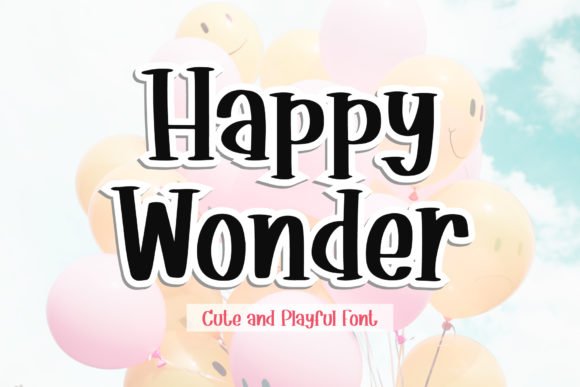
We’ve all been there – staring at a blank screen, struggling to find the perfect font to bring our creative vision to life. It’s like searching for a needle in a haystack, but with letters. Suddenly, the perfect font appears, and everything clicks into place. This is what happened to us when we discovered the Happy Wonder Font.
This adorable serif font is more than just a pretty face – it’s a versatile tool that can elevate your social media posts, posters, cards, and greeting cards. Its approachable and quirky style makes it the perfect fit for designers who want to add a touch of whimsy to their work. Whether you’re a seasoned pro or just starting out, the Happy Wonder Font is an invaluable addition to your design toolkit.
Key Features of Happy Wonder Font
- Font Family: Happy Wonder Font offers a unique and playful font family with a range of weights and styles, including bold, italic, and regular.
- Unique Characteristics: The Happy Wonder Font features a whimsical and hand-drawn design, with subtle imperfections and textures that add to its charm and personality.
- Character Count: The font includes a wide range of characters, including Latin, Cyrillic, and Greek alphabets, as well as punctuation marks and symbols.
Happy Wonder Font Review
Overall, I’m impressed with the Happy Wonder Font. It’s ✨ visually appealing, with a unique blend of playful and modern elements. The font is perfect for creating eye-catching titles and headings, especially in designs that need a touch of whimsy.
The Happy Wonder Font comes with a wide range of weights, from light to bold, which gives designers plenty of flexibility when it comes to choosing the perfect style for their project. I also appreciate the ✨ extensive character set, which includes a variety of special characters and symbols.
While the Happy Wonder Font is a great addition to any designer’s toolkit, it’s not without its limitations. ⚠️ One of the main issues is the font’s inconsistent spacing, which can make it difficult to use in certain contexts. Additionally, the font’s weight hierarchy can be a bit confusing at times.
Despite its limitations, I’m a big fan of the Happy Wonder Font. It’s a great choice for designers who want to add a touch of personality to their projects. With a little practice and patience, I think this font has the potential to become a go-to choice for many designers.
Design Considerations
- Use the Happy Wonder Font sparingly, as its unique style can be overwhelming if used too extensively.
- Experiment with different weights and combinations to achieve the desired effect.
- Be mindful of the font’s spacing and weight hierarchy to avoid visual inconsistencies.
Happy Wonder Font Practical Application Guide
Tips for Getting the Most Out of Happy Wonder Font
Use Happy Wonder Font to add a playful and whimsical touch to your designs.
Pair Happy Wonder Font with other playful fonts or graphics for a cohesive look.
Happy Wonder Font is perfect for:
Children’s book covers and illustrations.
Party invitations and decorations.
Food and beverage branding.
Alternatives to Happy Wonder Font for Designers
Great Vibes is a playful and elegant script font, ideal for creating a whimsical atmosphere in branding and advertising materials. It features a mix of modern and vintage elements, making it a great choice for designers looking for a unique and eye-catching font. Compared to Happy Wonder Font, Great Vibes has a more refined and sophisticated look, making it suitable for a wider range of design applications.
Carolyna Pro is a modern and stylish script font, perfect for designers who want to create a sense of luxury and sophistication. It features a sleek and refined design, making it ideal for high-end branding, advertising, and packaging materials. Compared to Happy Wonder Font, Carolyna Pro has a more polished and sophisticated look, making it suitable for premium design applications.